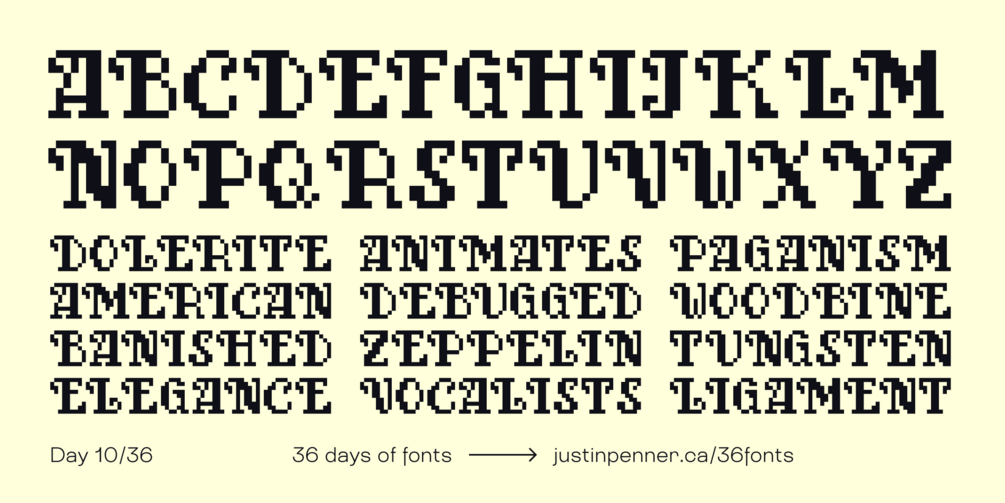
36 Days of Fonts: Day 10
Player 9
Pixel fonts are incredibly fun to make, because it's such a rigid restriction to design on a coarse grid, and you can draw a (boring) alphabet quite quickly. This design takes fantasy/fairytale/Art Nouveau lettering styles, with their swashy curves and unbalanced proportions, and puts them onto a blocky pixel grid. Every pixel counts, and there's no room for error. I'd love to add a lowercase and see this used in a low-res fantasy game.